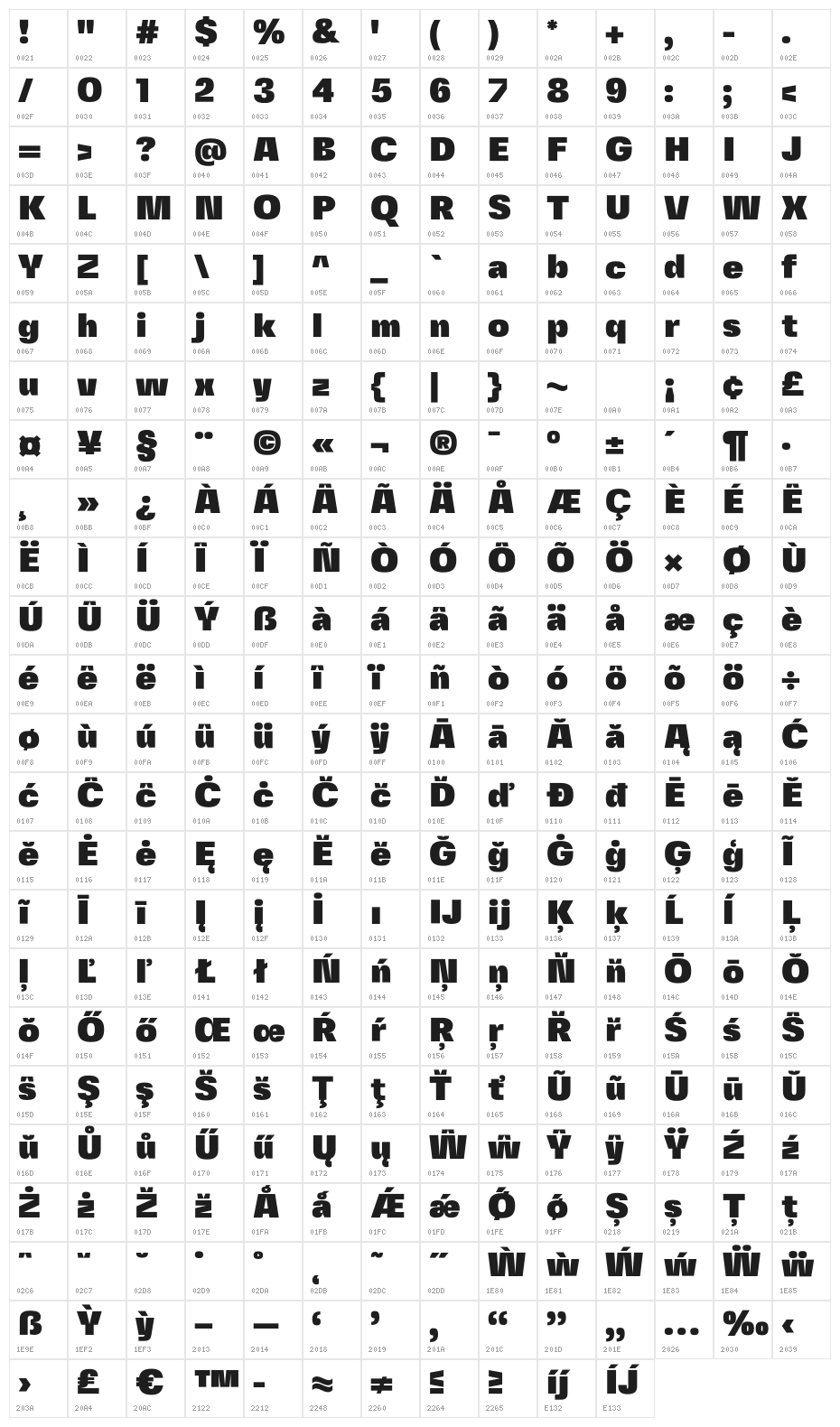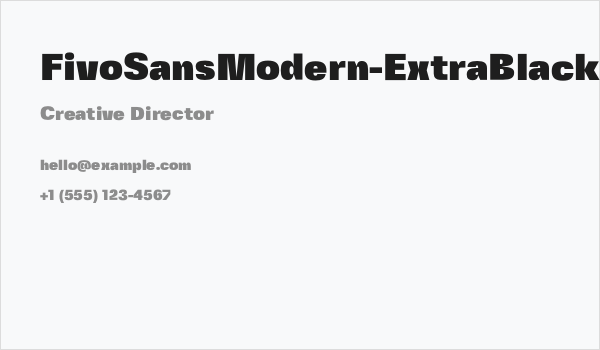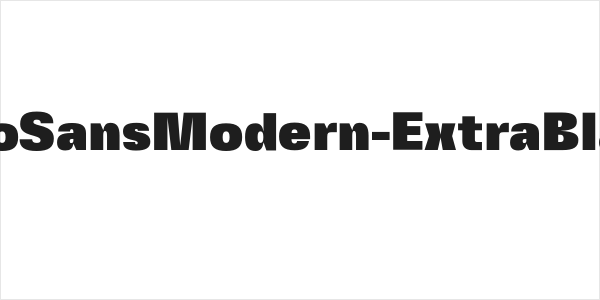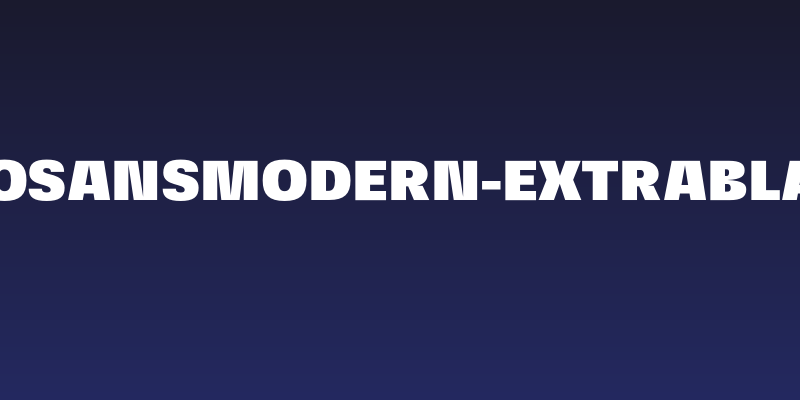
FivoSansModern-ExtraBlack Font
FivoSansModern-ExtraBlack Description
This font exhibits a bold and assertive style, characterized by its thick strokes and strong presence. The uppercase and lowercase letters maintain a consistent weight, creating a uniform appearance. The numbers and special characters are equally robust, ensuring legibility and impact. The design is modern and sans-serif, with no additional flourishes or serifs, making it ideal for clear and direct communication. The overall impression is one of strength and clarity, suitable for making a bold statement.
| Proposed Projects | Ideal for headlines, posters, branding, and any project requiring a strong visual impact. |